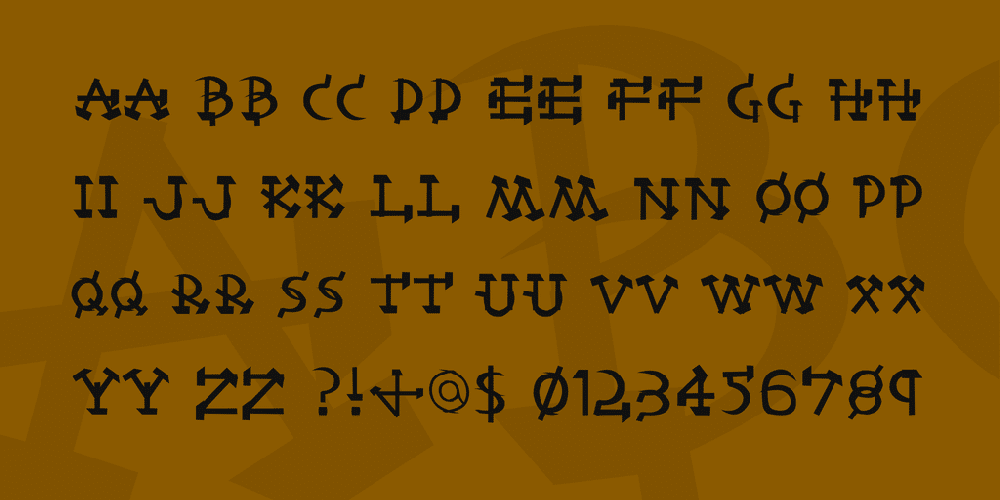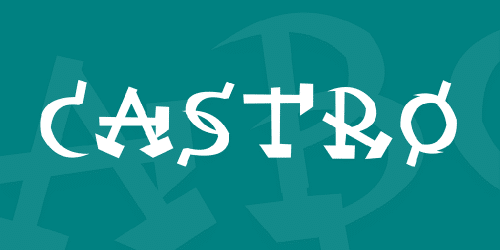
Castro Font was Inspired by the communist symbol of a sickle and hammer.
Alt + 0151 on the num pad will type the sickle and hammer symbol with this font. There are some other alt + number combos that will type the sickle and hammer, too.
- Designer: kenny k